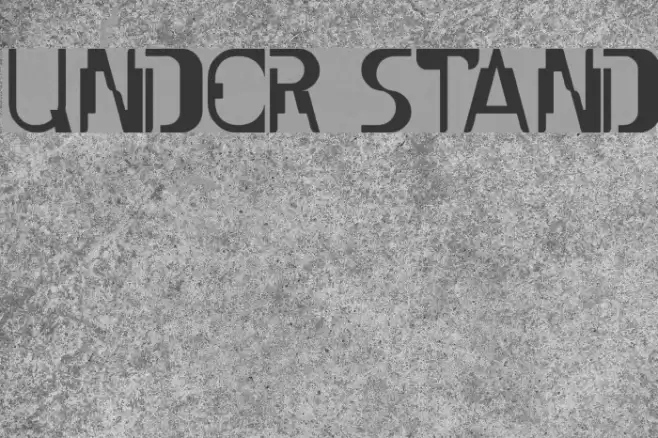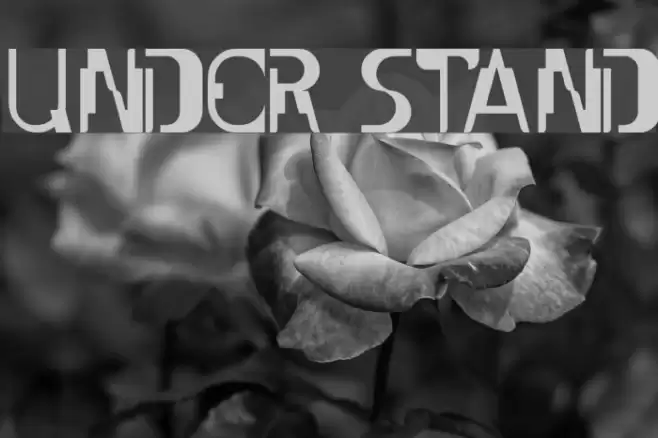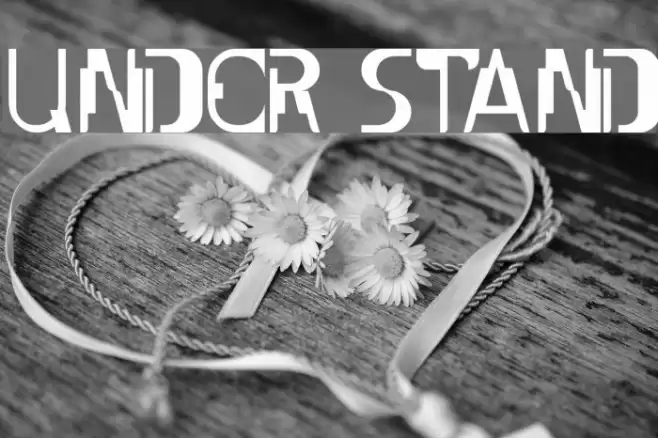
UNDER STAND Font
UNDER STAND Description
This font exhibits a bold and modern design with a unique, futuristic aesthetic. The characters are constructed with a combination of solid and fragmented strokes, creating a digital, almost pixelated appearance. The uppercase letters are particularly striking, with angular edges and a geometric structure that gives the font a strong visual impact. The design is consistent across all characters, maintaining a cohesive look that is both innovative and eye-catching. The font's style is reminiscent of digital displays or sci-fi themes, making it suitable for projects that require a modern and technological feel.
A bold, futuristic font with a digital, pixelated aesthetic from Uncategorized fonts.
- Proposed Projects: Ideal for tech-related branding, sci-fi book covers, digital media, and futuristic-themed posters.